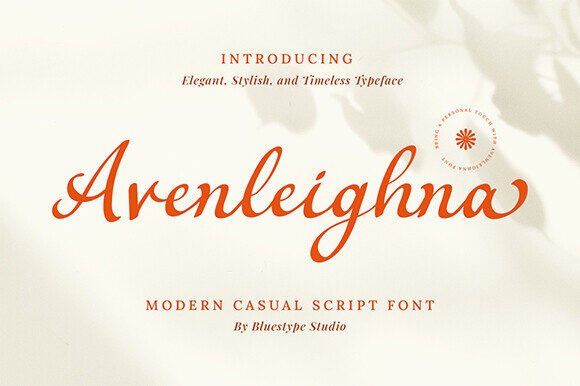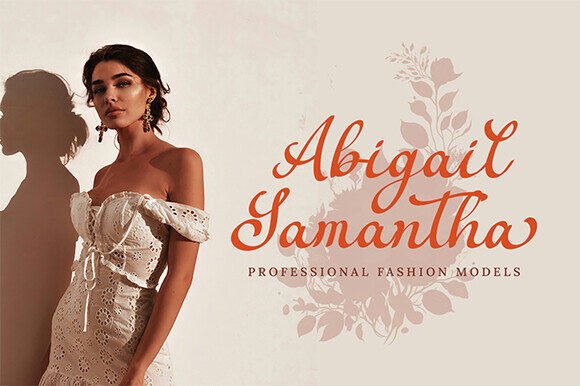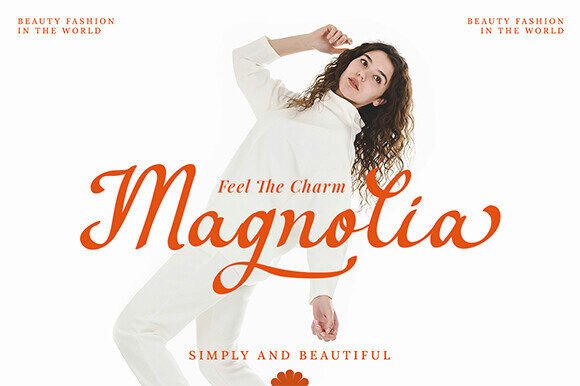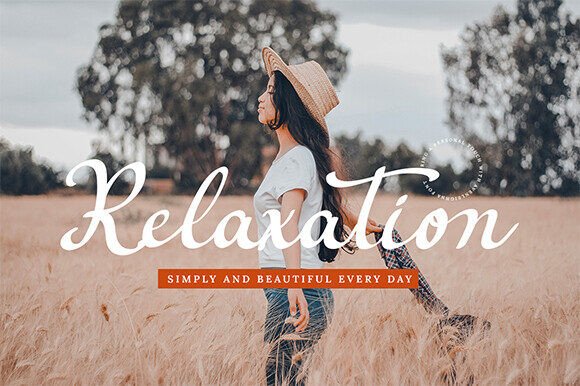
Avenleighna Font: Elegant Script for Wedding Invitations & Branding
About the Avenleighna Font
Explore the possibilities with Avenleighna Font, a font that offers both beauty and functionality. Avenleighna is a beautifully crafted script font that blends effortless casual strokes with a hint of vintage allure and modern simplicity. Designed to be versatile, Avenleighna moves gracefully between contemporary designs and nostalgic classics, making it perfect for logos, branding, invitations, social media, and editorial layouts.
Avenleighna’s effortless elegance shines in headlines, logos, and short-form text like invitations or social media posts. Its graceful curves lend themselves well to branding projects requiring a touch of vintage sophistication, particularly for businesses in fashion, beauty, or the arts. However, its delicate stroke weight makes it less suitable for body text or lengthy paragraphs where readability is paramount. Avoid using it in UI contexts or situations requiring high levels of visual clarity in smaller sizes.
Pairing Avenleighna effectively requires considering its inherent charm. A clean sans-serif like Montserrat or Lato provides a strong contrast, grounding the script’s fluidity. For a more vintage-inspired feel, pair it with a classic serif such as Garamond or Playfair Display. These combinations maintain visual balance and prevent the design from feeling overly busy or overwhelming.
Avenleighna projects a sophisticated yet approachable personality; it is both elegant and friendly, making it ideal for brands aiming for a refined yet relatable image.
Avenleighna Font Usage Examples
Avenleighna Font Example